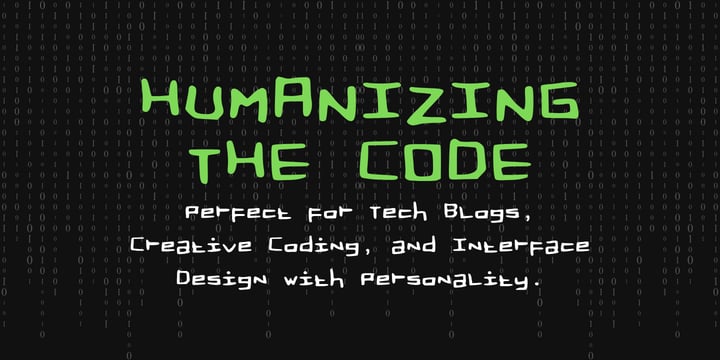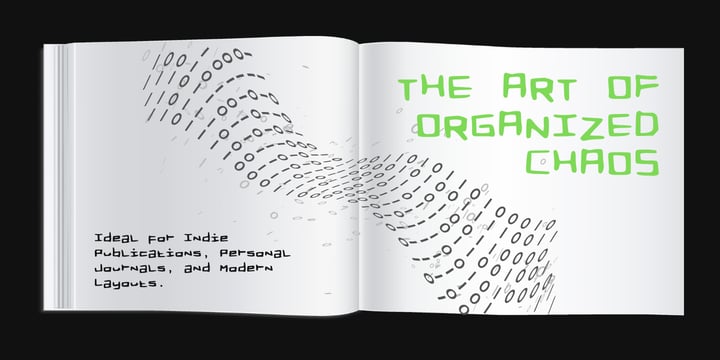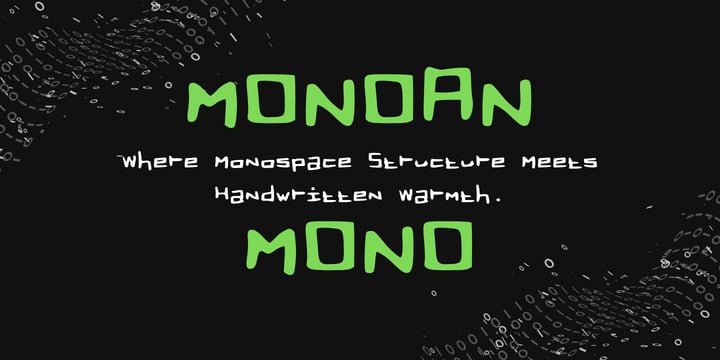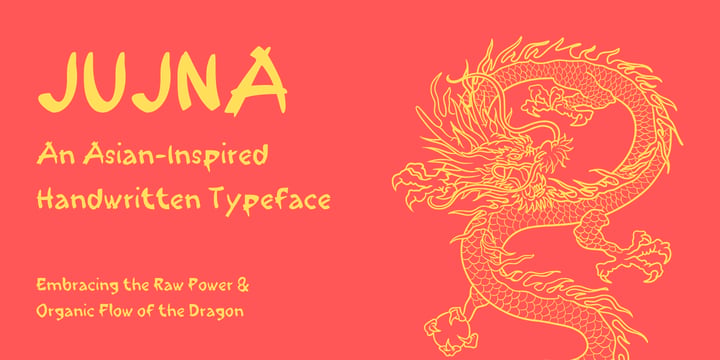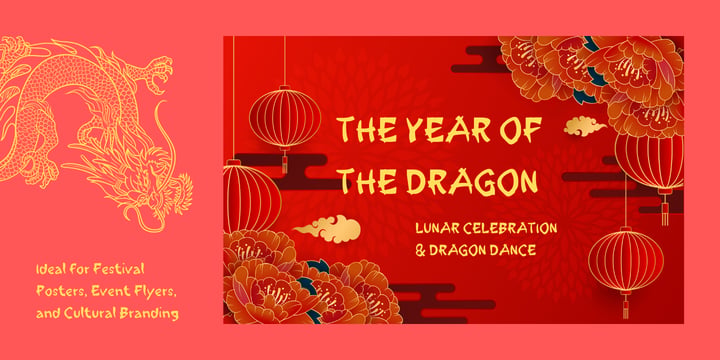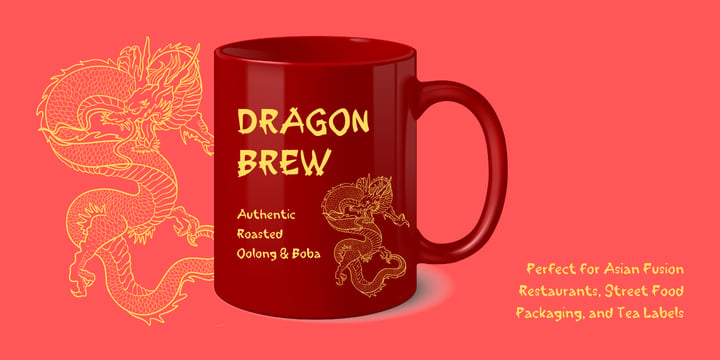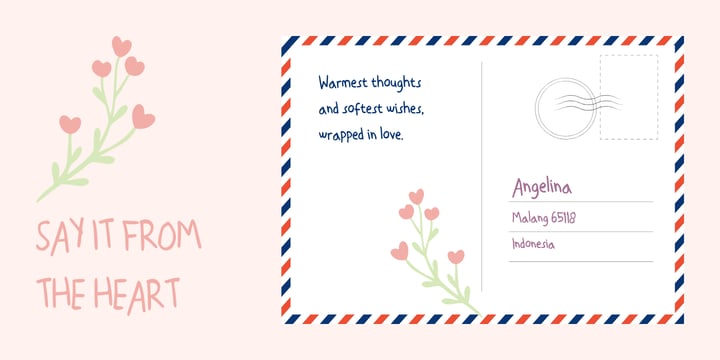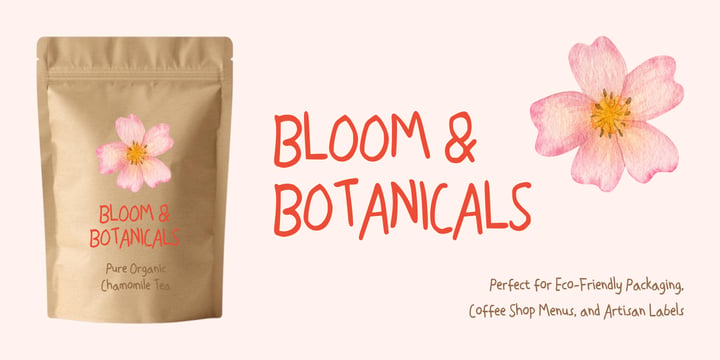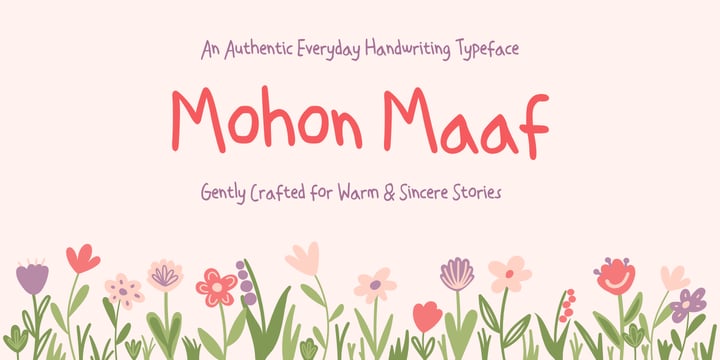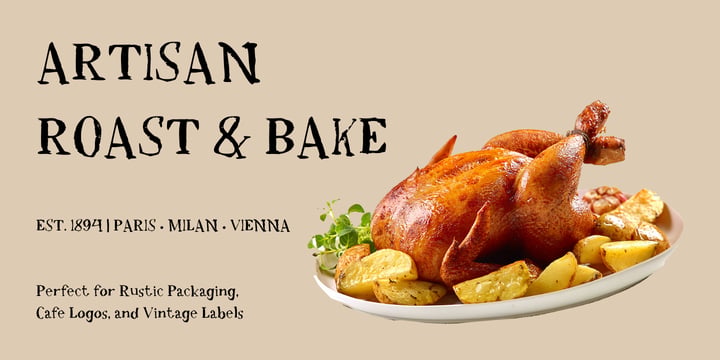
Moch Zamroni
Moch. Zamroni is a type designer and multidisciplinary creative whose work exists at the intersection of structural logic and visual aesthetics. With a professional foundation that spans both digital engineering and graphic design, his approach to typography is highly analytical and deeply rooted in architectural precision.
Throughout his career in the tech and creative industries, Zamroni has cultivated a strong focus on custom vector typography and brand identity. His design process is heavily influenced by geometric principles, particularly the golden ratio, and the systemic exactness required in structured development environments. He draws inspiration from the mathematical harmony found in both complex systems and nature, translating these concepts into elegant, highly readable letterforms.
Zamroni’s design philosophy centers on the belief that type must be as functional as it is beautiful. He meticulously drafts every curve, angle, and counter to ensure strict structural integrity. Drawing from his extensive experience in crafting intricate digital layouts, logos, and comprehensive visual assets, he intimately understands the rigorous technical demands placed on typography in modern design workflows.
This dual perspective—as both a visual artist and a technical builder—drives him to create robust typographic systems that empower other creatives to execute their visions with clarity and impact. Whether designing for immersive digital interfaces or bold editorial spaces, his focus remains on delivering typefaces that offer a perfect equilibrium between mechanical precision and distinct character.